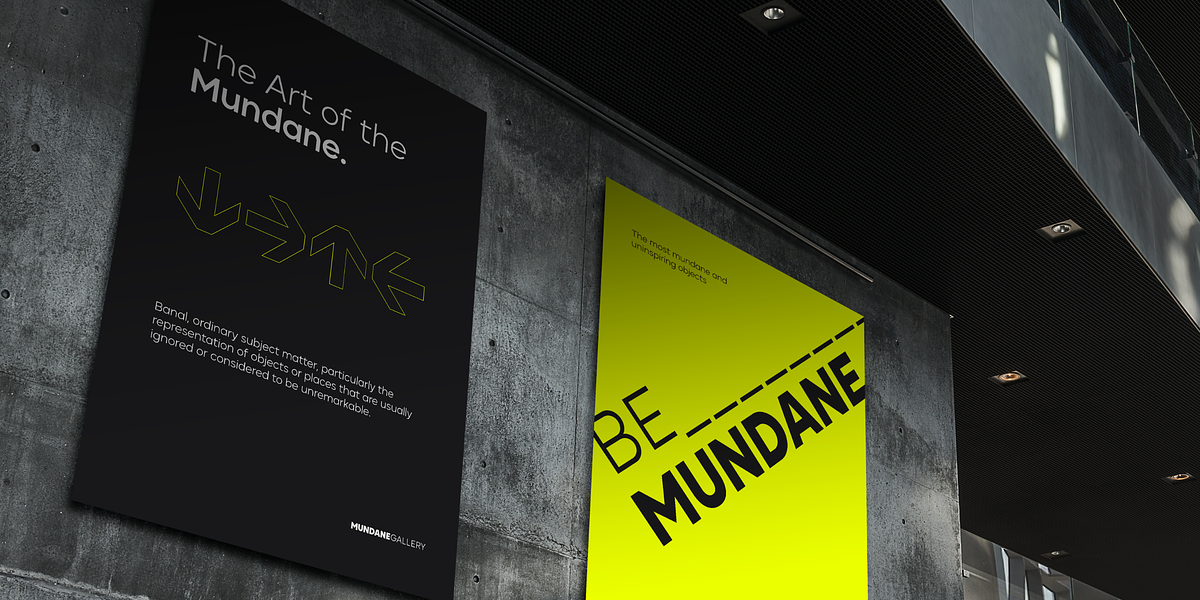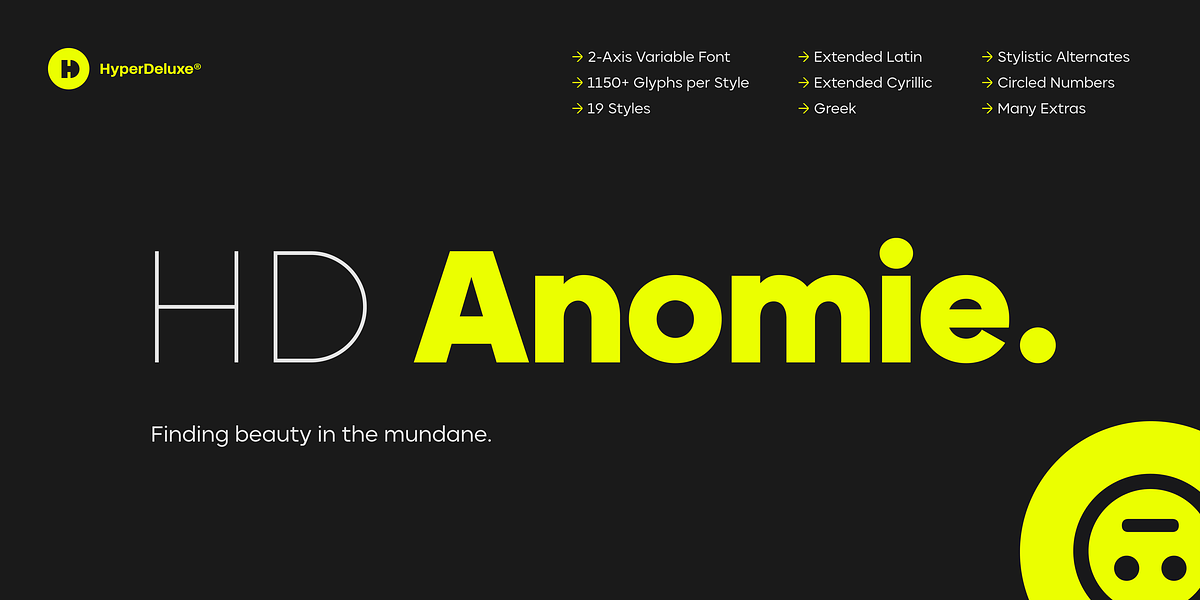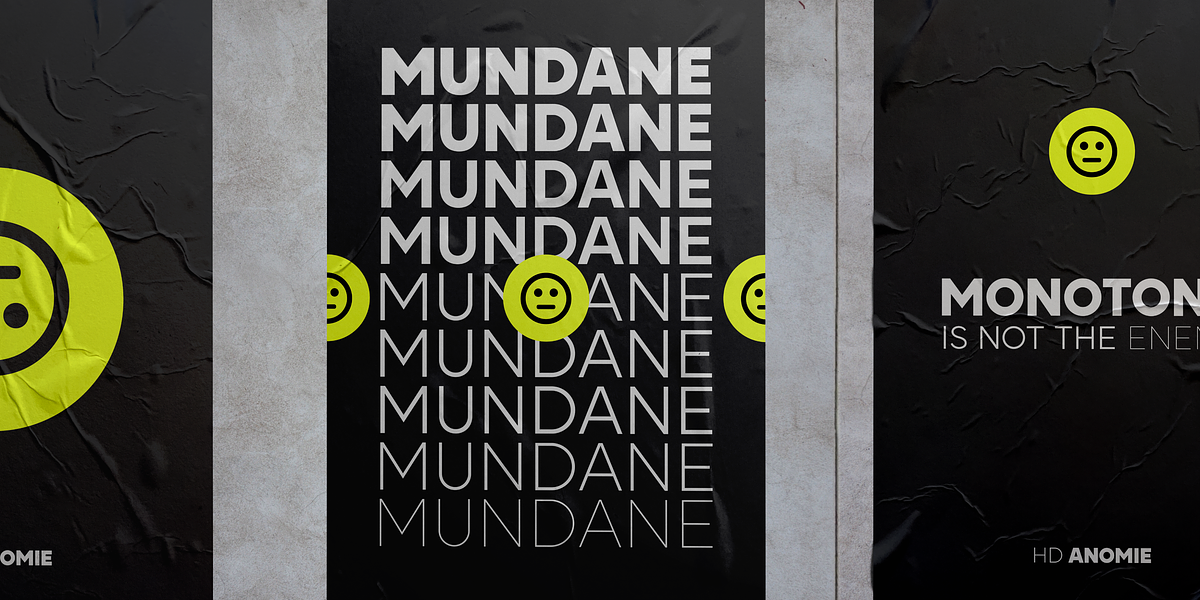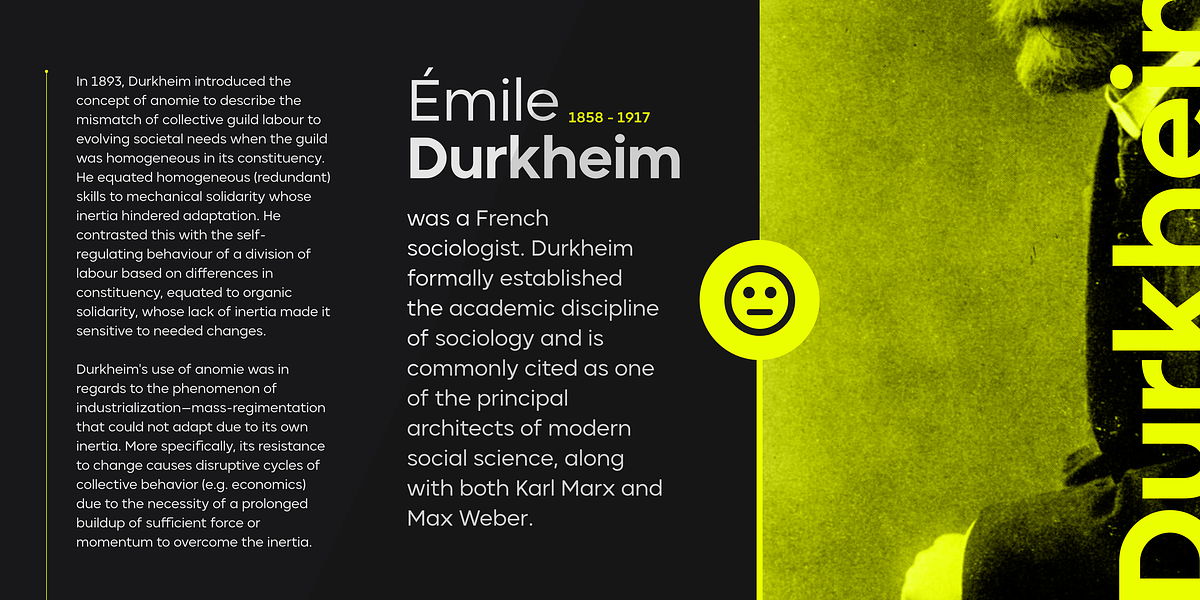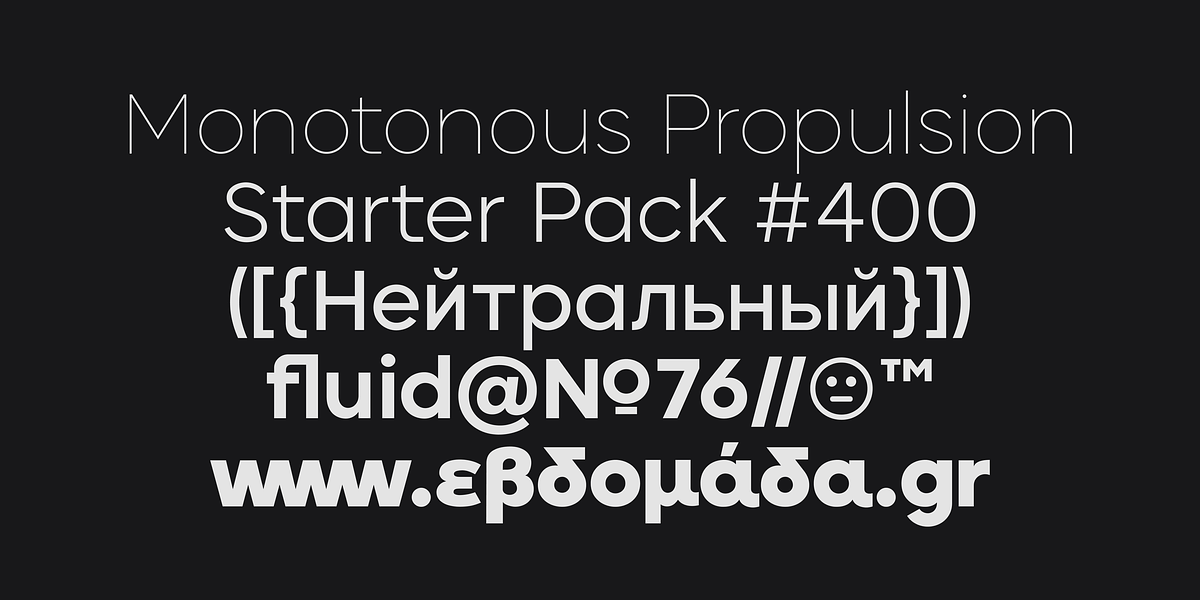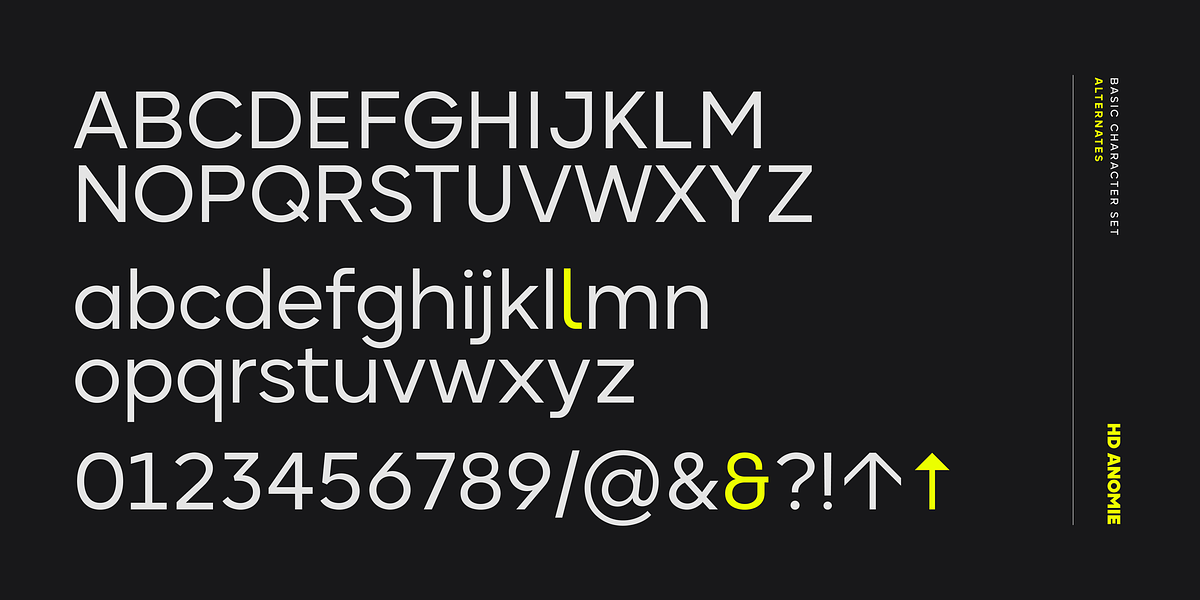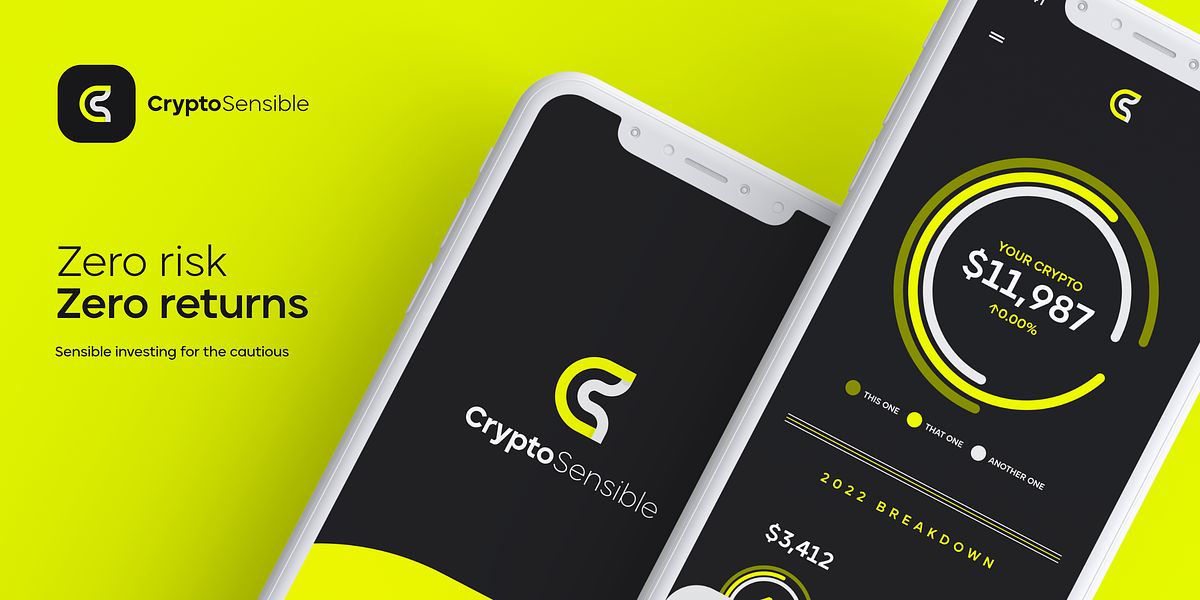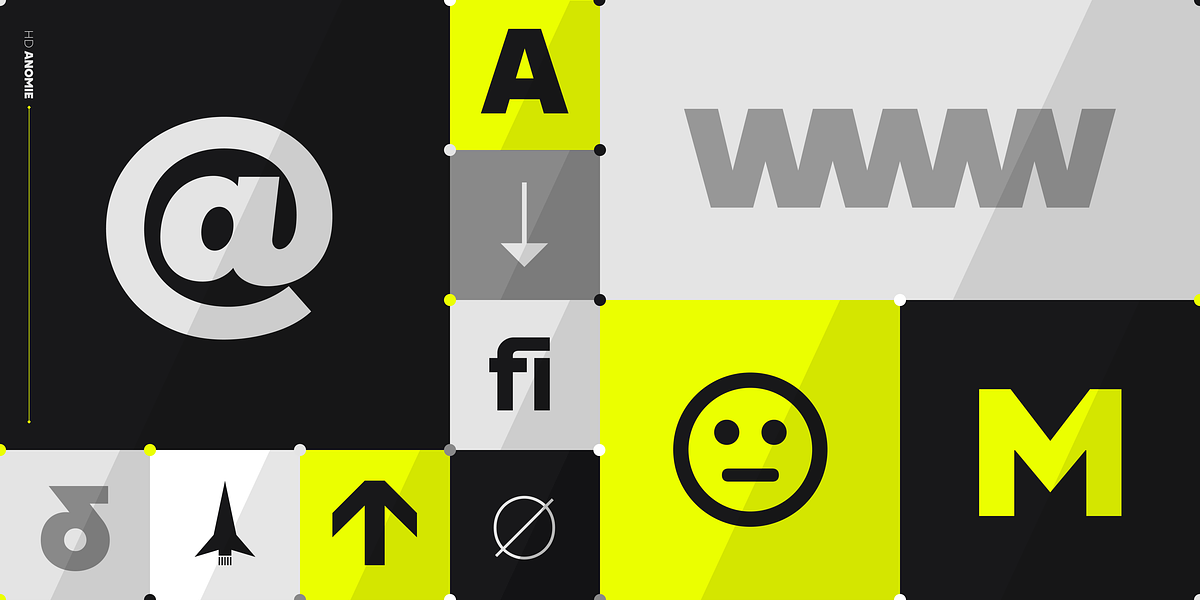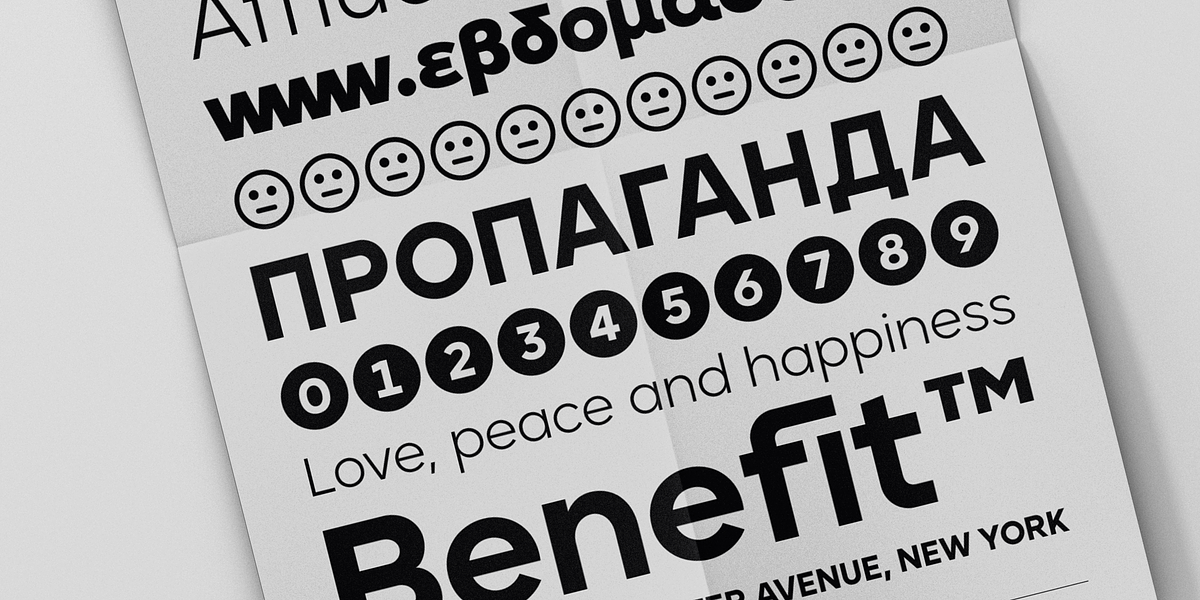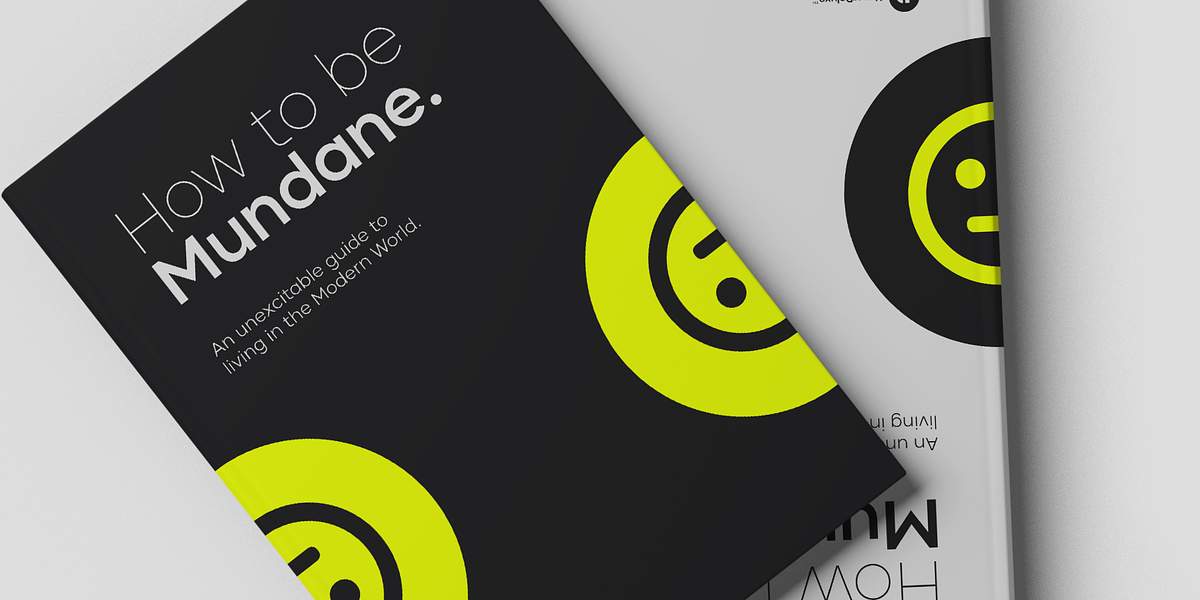
HD Anomie
HD Anomie is a modern geometric sans serif typeface designed by HyperDeluxe®. Its clean and minimal aesthetic makes it suitable for a wide range of applications, from branding and print to UI and digital design. The font features subtle forms and nuanced curves, resulting in a typeface that is both mechanical and organic. Its robust build includes extensive glyph support (over 1150 per weight), covering extended Latin, Cyrillic, and basic Greek characters. Additional features include stylistic alternates, case-sensitive forms, and two arrow sets.